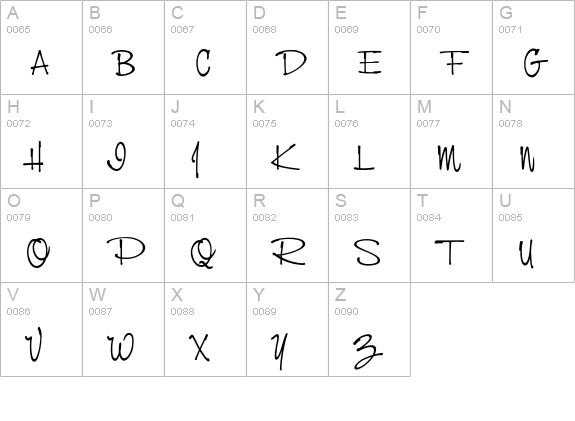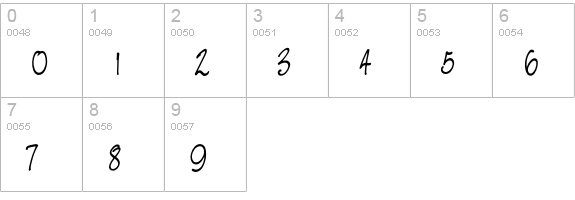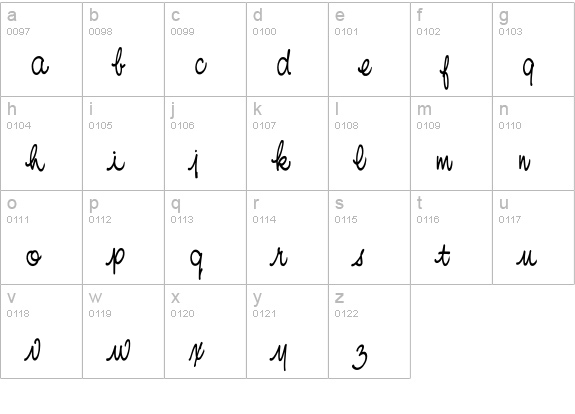
NevisonCasualScript Font Details
NevisonCasualScript font is a charming and elegant script typeface that exudes a sense of casual sophistication. Its flowing lines and gentle curves give it a relaxed and inviting feel, making it perfect for a wide range of design projects. Whether you're creating wedding invitations, greeting cards, or social media graphics, this font will add a touch of warmth and personality to your work. What sets NevisonCasualScript font apart is not just its beautiful design, but also the fact that it is available for free. That's right, you can download this stunning font at FontsMarket.com without having to spend a penny. So go ahead and give your projects a stylish and contemporary look with NevisonCasualScript font - the perfect choice for anyone looking to add a touch of casual elegance to their designs.